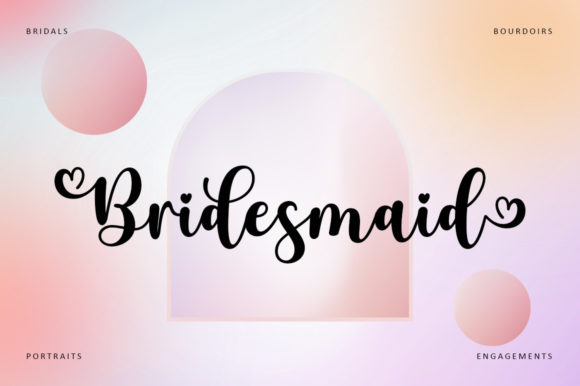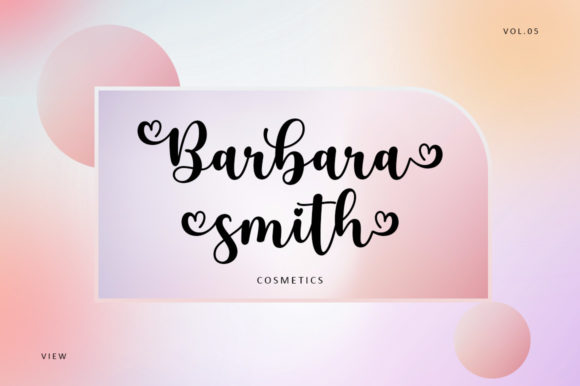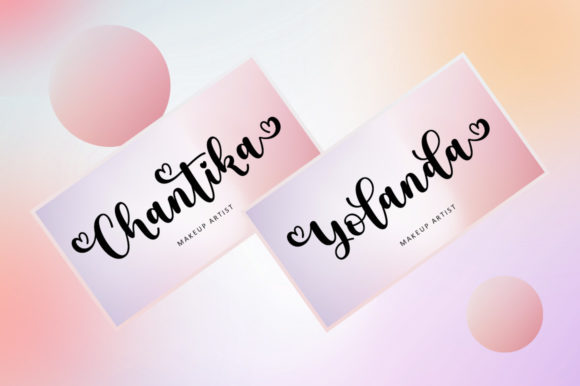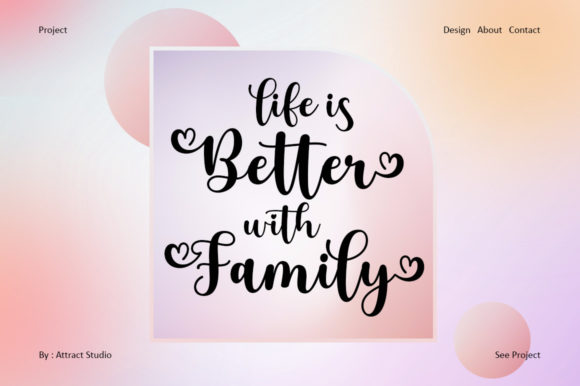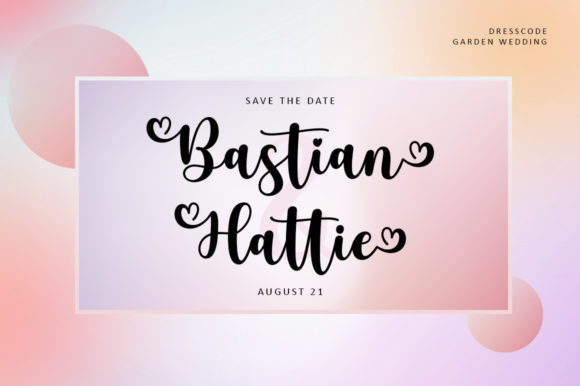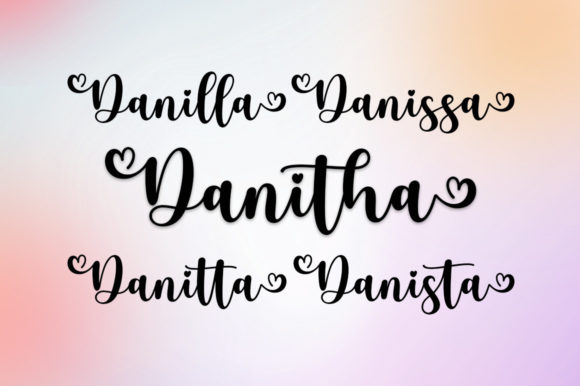
Bastrid Script Font: Elevate Your Designs with Elegance and Sophistication
In the world of typography, a well-chosen font can make all the difference in the success of a design project. For designers and crafters seeking to add a touch of luxury and refinement to their work, the Bastrid Script Font is an exceptional choice. This chic, refined script font emanates sophistication and elegance, making it the perfect match for a wide range of projects.
What Makes Bastrid Script Font Stand Out?
Bastrid Script is not just another script font; it’s a versatile and stylish typeface that offers a unique blend of classic elegance and modern flair. Its stylish alternates and ligatures provide designers with the tools to create visually stunning and cohesive designs. Whether you’re working on a branding project, packaging, wedding invitations, or any other creative endeavor, Bastrid Script Font is sure to impress.
One of the standout features of the Bastrid Script Font is its PUA (Private Use Area) encoding. This means that all glyphs and swashes are easily accessible, allowing designers to experiment and explore a wide range of typographic possibilities without the hassle. PUA encoding ensures that you can make the most out of this beautiful font, incorporating intricate details and flourishes that elevate your designs to the next level.
The versatility of Bastrid Script Font makes it suitable for numerous applications. Here are just a few examples of where this elegant font can shine:
- Branding and Logotypes: Create memorable and sophisticated brand identities with Bastrid Script’s flowing lines and elegant alternates.
- Wedding and Event Stationery: Add a touch of luxury and romance to wedding invitations, save the dates, and other event materials.
- Packaging: Stand out on store shelves with beautifully typeset packaging that exudes high-end quality.
- Marketing Materials: Elevate your marketing collateral, including brochures, flyers, and posters, with a font that commands attention and conveys sophistication.
Why Choose Bastrid Script Font?
With so many script fonts available, why choose Bastrid Script? Here are a few compelling reasons:
- Unique and Distinctive: Bastrid Script offers a fresh take on traditional script typography, providing a distinctive look that sets your designs apart.
- Elegant and Versatile: Its elegant appearance and versatile nature make it suitable for a wide range of design projects.
- User-Friendly: Thanks to PUA encoding, using Bastrid Script Font is straightforward and hassle-free, allowing you to focus on the creative aspect of your project.
In conclusion, the Bastrid Script Font is a valuable addition to any designer’s toolkit. Its blend of elegance, sophistication, and versatility makes it an ideal choice for projects where making a lasting impression is key. With its stylish alternates, ligatures, and PUA encoding for easy access, Bastrid Script Font is poised to become your go-to script font for a wide array of creative endeavors. Whether you’re a professional designer or a crafting enthusiast, Bastrid Script is sure to help you achieve your design goals with style and flair.